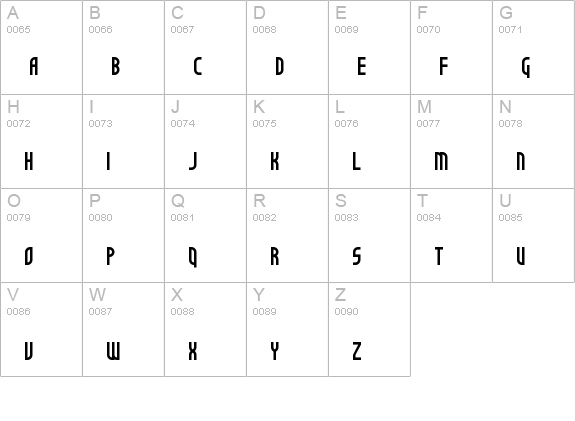
Not Sure If Weird Or Just Regular is the standard, neutral variant in the Not typeface family \xE2\x80\x94 well suited to general body text, paragraphs, and standard typographic work.
"Not Sure If Weird Or Just Regular font is a unique and eye-catching typeface that blurs the line between oddity and normalcy. Its quirky yet familiar design will make your projects stand out while still maintaining a sense of readability and professionalism. This font is perfect for adding a touch of originality to your designs without sacrificing clarity. What's even better is that Not Sure If Weird Or Just Regular font is freely available for download at FontsMarket.com. You can easily access this versatile font and use it in a variety of projects, whether it's for personal or commercial use. So why settle for the ordinary when you can add a touch of intrigue with this free font? Download it today and unleash your creativity!"